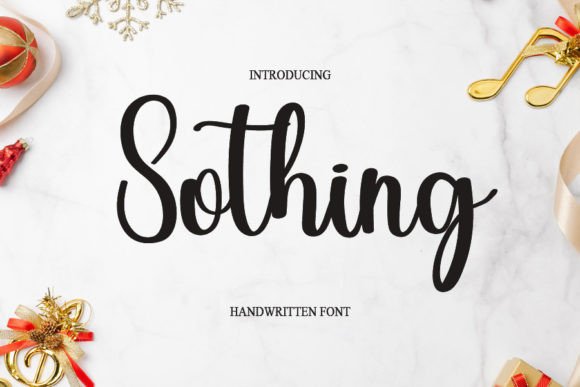
**Unleash the Power of Sothing: The Font that Enchants Script with Simplicity**
Prepare to be captivated by Sothing, a script font masterpiece that combines graceful curves and effortless elegance. This enchanting creation from NYA Letter breathes a touch of wonder into your every word, transforming ordinary text into a visual feast.
Sothing's gentle strokes evoke a sense of warmth and allure, making it the perfect choice for any project seeking a touch of finesse. Its versatility knows no bounds, lending itself seamlessly to logos, branding, invitations, social media posts, and more.
Whether you're a seasoned designer or just starting your creative journey, Sothing empowers you to express your unique style with unmatched charm. Its easy-to-read nature ensures that your message shines through, while its understated sophistication adds a touch of sophistication to every design.
**Elevate Your Creations with Sothing's Unparalleled Elegance**
With Sothing at your fingertips, you'll discover a newfound appreciation for the art of scripting. Its delicate lines dance across the page, creating a captivating visual experience that draws readers into your words.
Imagine your logo transformed into a work of art, exuding professionalism and creativity. Enchant your invitations with a touch of handwritten grace, evoking a sense of intimacy and warmth. Let your social media posts bloom with the beauty of Sothing, capturing the attention of followers and leaving a lasting impression.
**Sothing: The Font that Brings Your Imagination to Life**
Sothing is more than just a font—it's an invitation to unleash your imagination. Its versatility empowers you to explore endless creative possibilities, bringing your vision to life with unmatched elegance.
Don't settle for ordinary fonts that fade into the background. Embrace the enchanting power of Sothing and let your words dance with grace and beauty. Experience the transformative power of a font that elevates your designs and captivates your audience.
**Embrace Sothing Today and Discover the Magic of Script**
Every stroke of Sothing is a testament to the artistry of its creator, NYA Letter. Each letter is meticulously crafted to evoke emotion, inspire creativity, and leave a lasting impression.
Join the ranks of discerning designers who have discovered the beauty of Sothing. Let this captivating script font ignite your imagination and elevate your creations to new heights of elegance and enchantment.